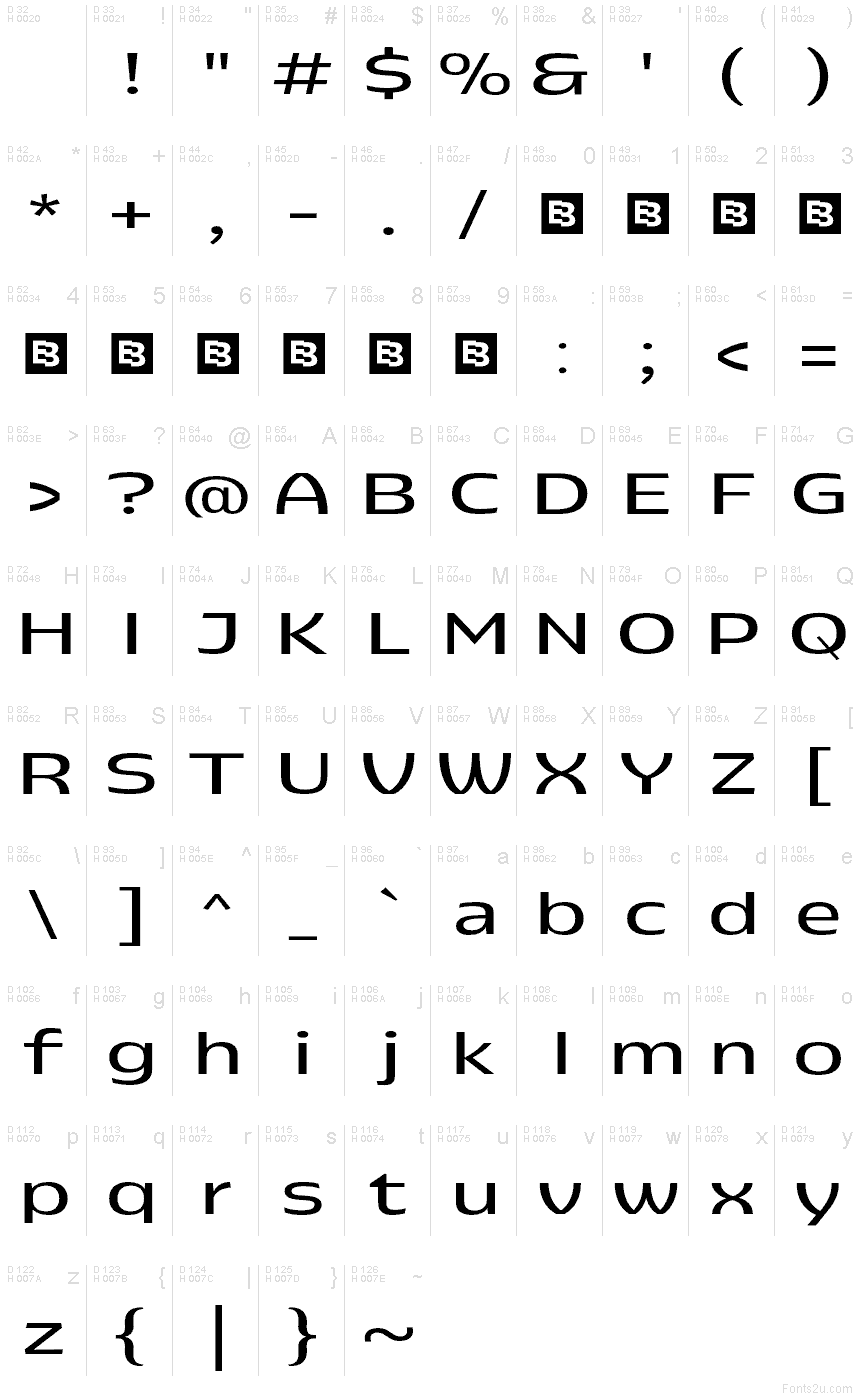
Pocas Trial Expanded
Pocas Expanded font by Eko Bimantara is a free expanded sans serif typeface. When you need big presence without bulky weight, it stretches letters with calm, even spacing and smooth, rounded joins. The forms feel airy and confident—wide shoulders, open counters, and a steady rhythm that reads cleanly from a distance yet stays friendly up close. Part of the Pocas family, it gives headlines room to breathe.
Using Pocas Expanded, short lines snap into strong, banner-like statements. It shines on posters, web hero banners, product packaging, signage, esports or tech branding, and editorial pull quotes. This free font holds shape at large sizes while staying crisp on screens. Pair it with a narrower text face—like a classic grotesk or the regular Pocas cut—to keep body copy compact beneath those wide, confident titles.